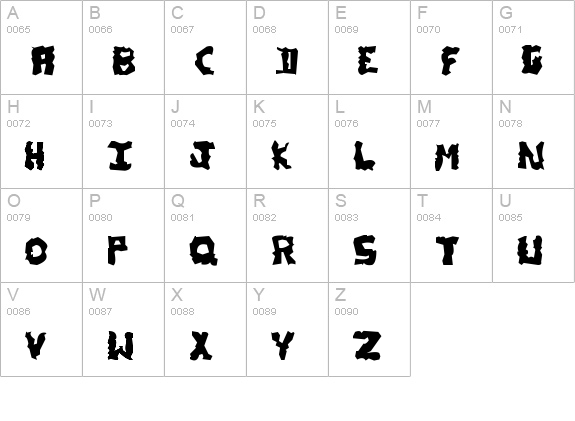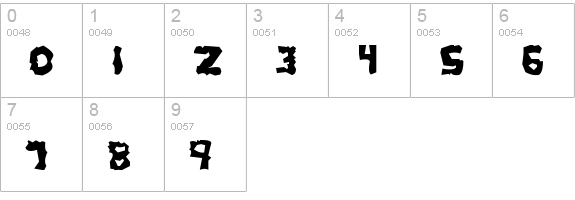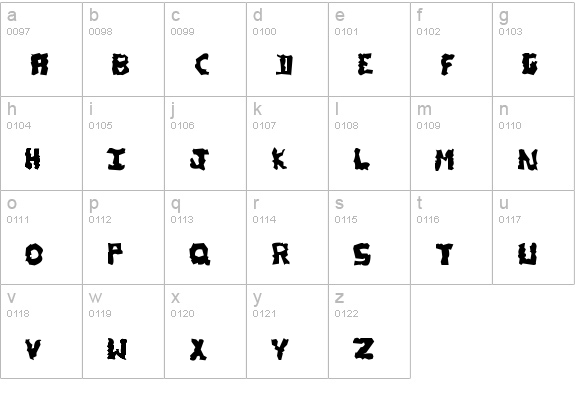
YB Drunk Monkey Font Details
Introducing YB Drunk Monkey font, a whimsical and playful typeface that exudes a sense of fun and creativity. This unique font features charming hand-drawn characters with a quirky twist, perfect for adding a touch of personality to your projects. YB Drunk Monkey font is freely available to download at FontsMarket.com, making it easily accessible for all design enthusiasts. Whether you're working on a party invitation, a children's book, or a fun branding project, this font will bring a sense of joy and lightheartedness to your designs. With its bold strokes and playful curves, YB Drunk Monkey font is sure to catch the eye and leave a memorable impression. Let your creativity run wild with this free and delightful font that is sure to add a touch of whimsy to any project.